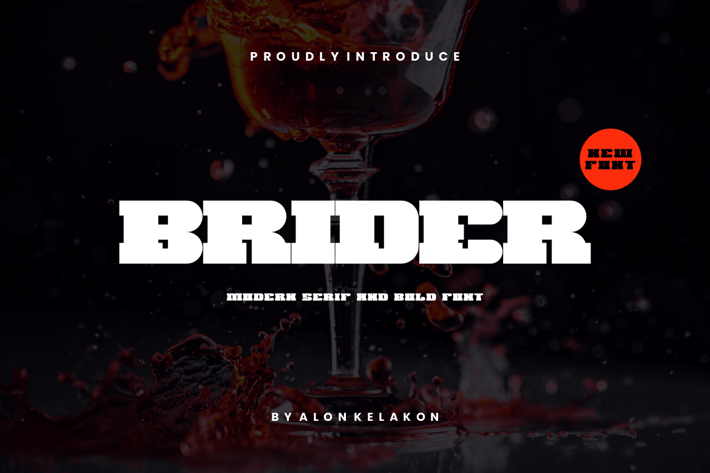
Brider - Bold Font
Brider - Bold Font Font is unique . Ready to use for your design like labeling, movie sceen, poster, movie title, gigs, album covers, logos, and much more.